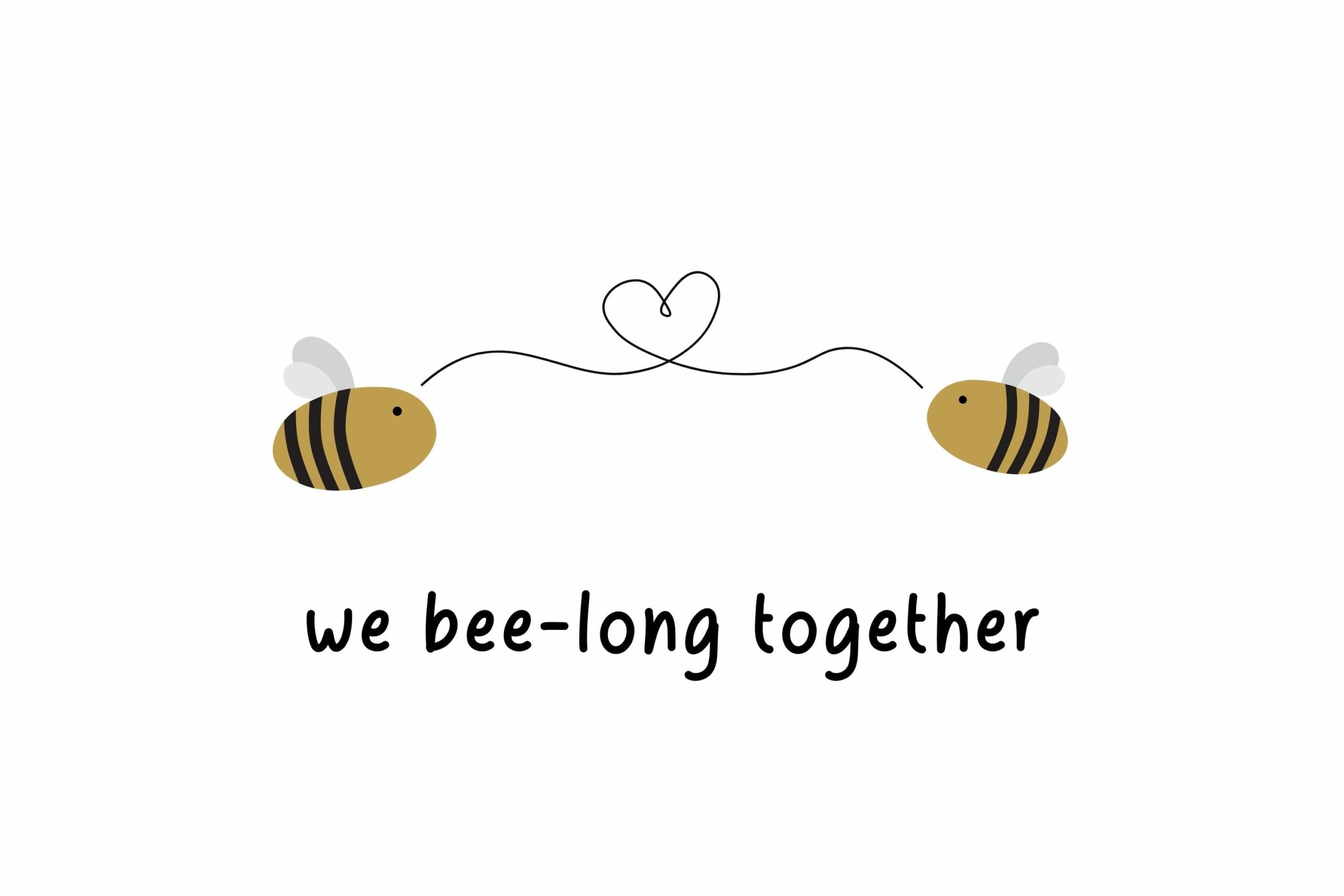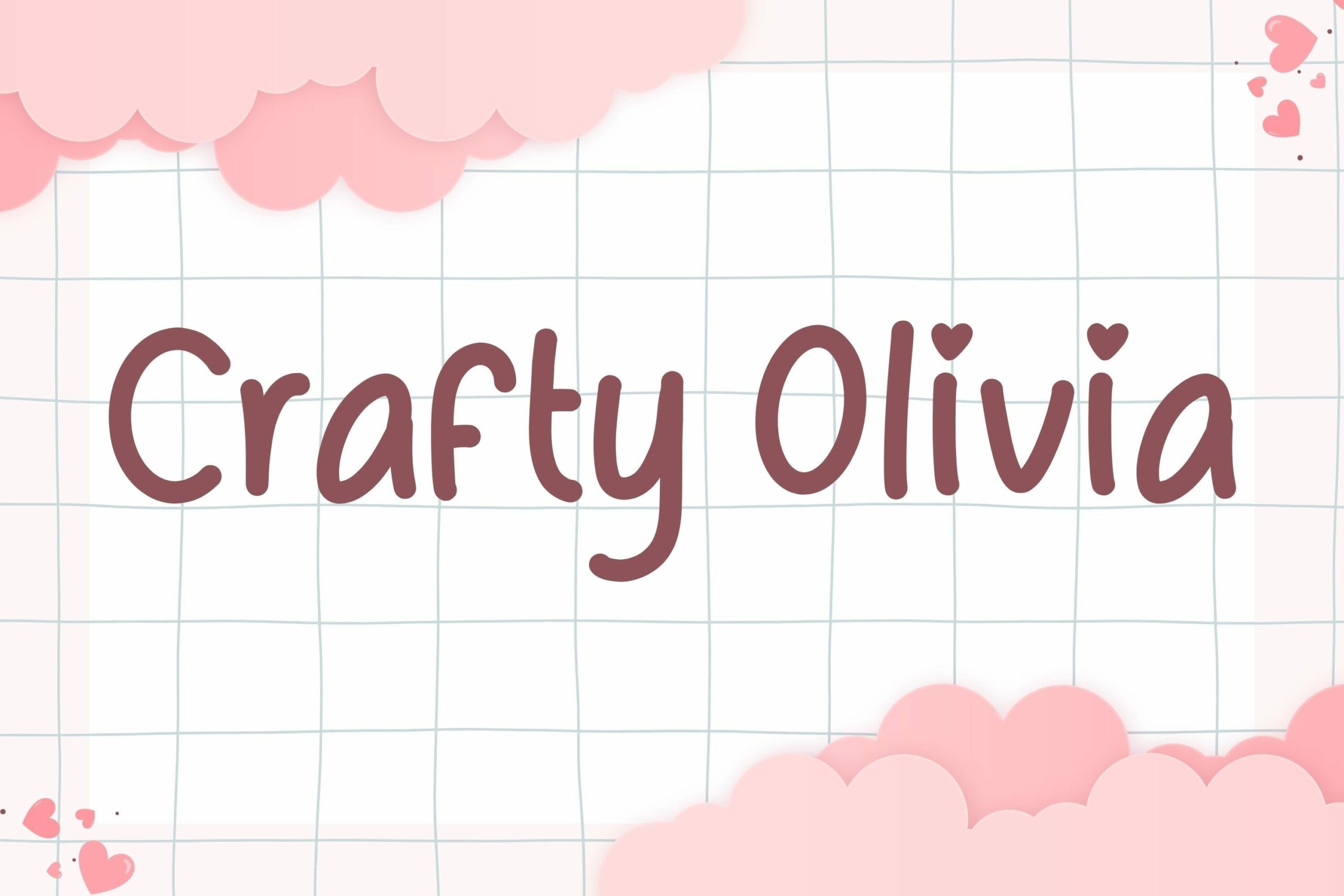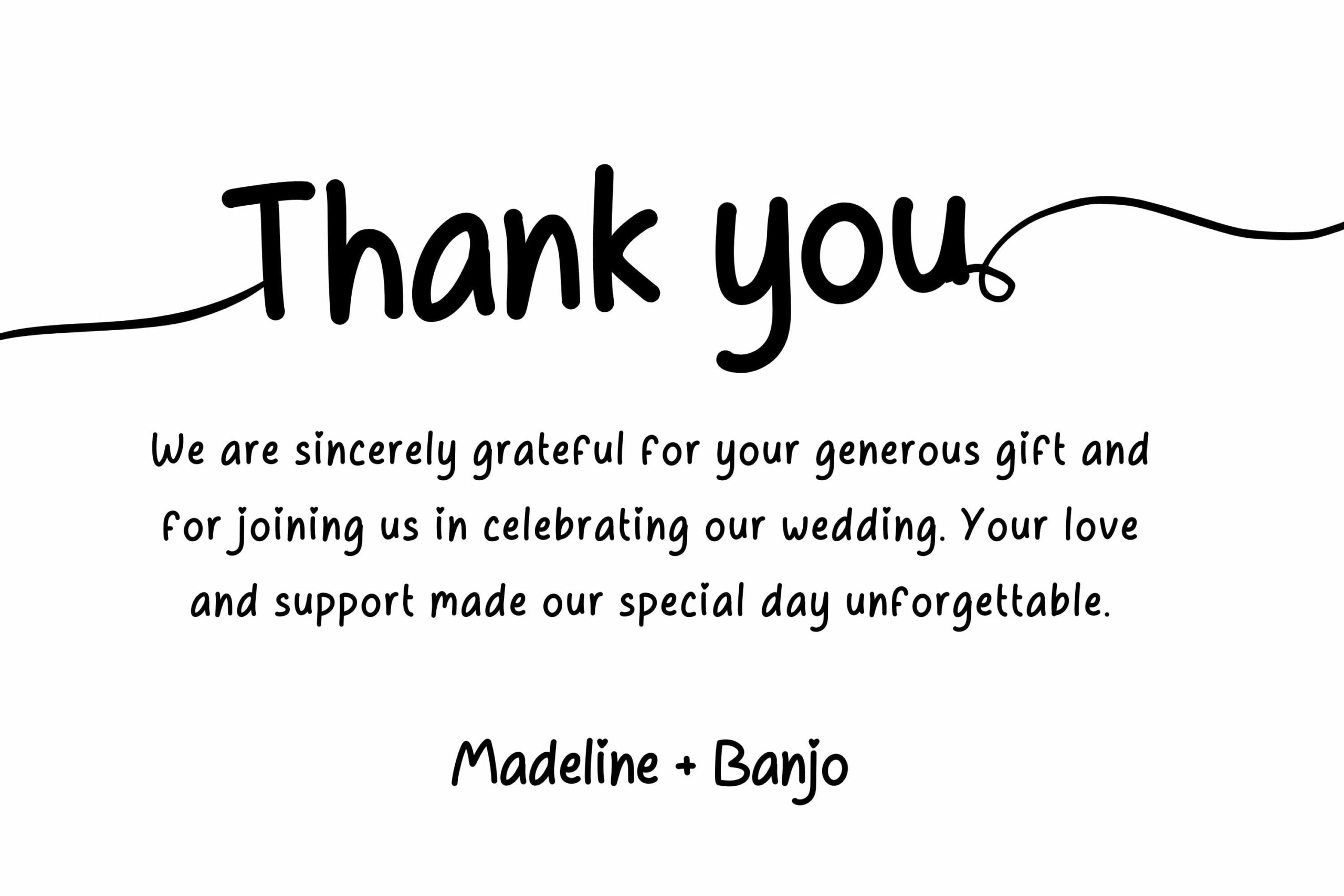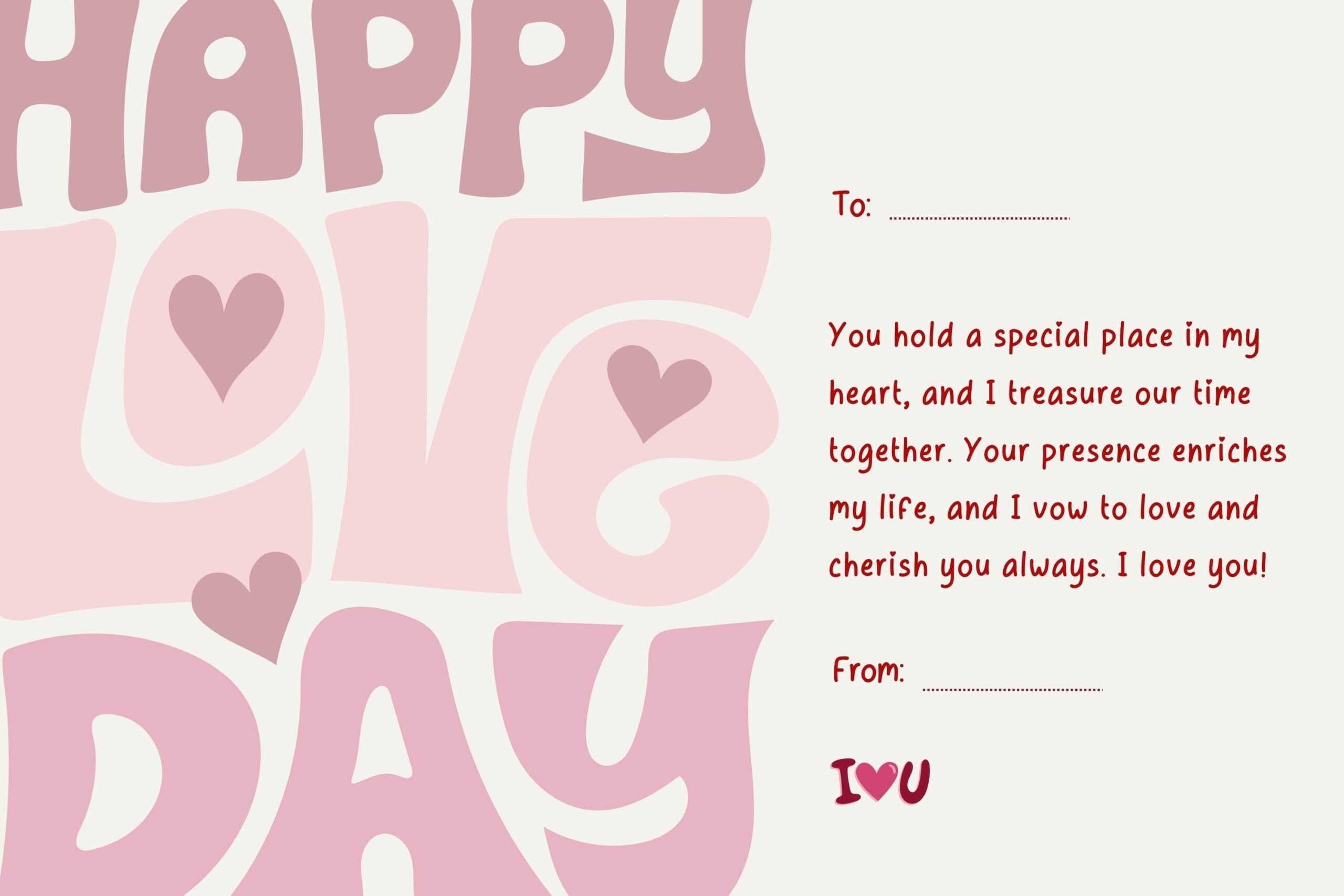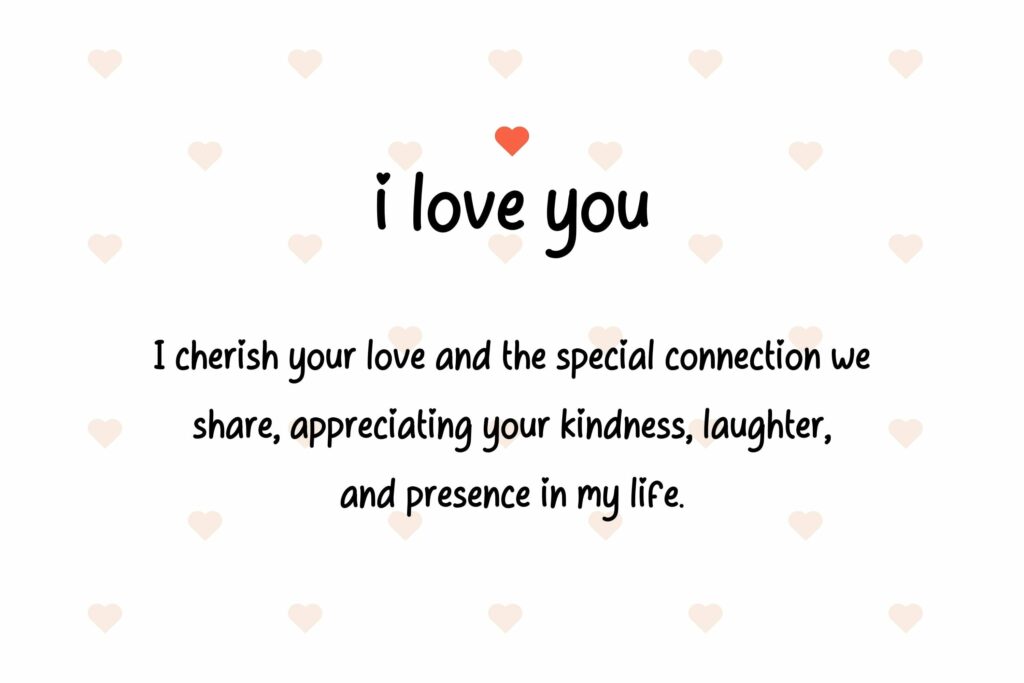
Crafty Olivia Font – Free Cute & Elegant Handwritten Typeface
Discover the enchanting Crafty Olivia font, a handwritten typeface that blends adorable charm with effortless elegance. Designed to elevate any creative project, this font is perfect for designers who want to infuse their work with personality, warmth, and style. Whether you’re working on branding, social media content, or personal stationery, Crafty Olivia offers a fresh, unique voice that feels both playful and polished.
Charming and Elegant Style
Crafty Olivia features smooth strokes, flowing letterforms, and a refined hand-drawn quality. Its delicate balance of sophistication and sweetness makes it an excellent choice for creative professionals who want their text to stand out without feeling overdone. From boutique logos to wedding invitations, this font delivers visual impact while maintaining readability and grace.
Where to Use Crafty Olivia
This font shines in a variety of use cases thanks to its versatility and visual appeal. Here are a few ideas for where it works best:
- Invitations: Ideal for weddings, birthdays, and baby showers
- Branding: Use it for fashion boutiques, skincare brands, or handmade products
- Social Media: Add charm to Instagram quotes, Pinterest pins, or YouTube thumbnails
- Packaging: Perfect for labels, tags, and gift items with a personal touch
- Printables: Great for planners, stickers, and DIY templates